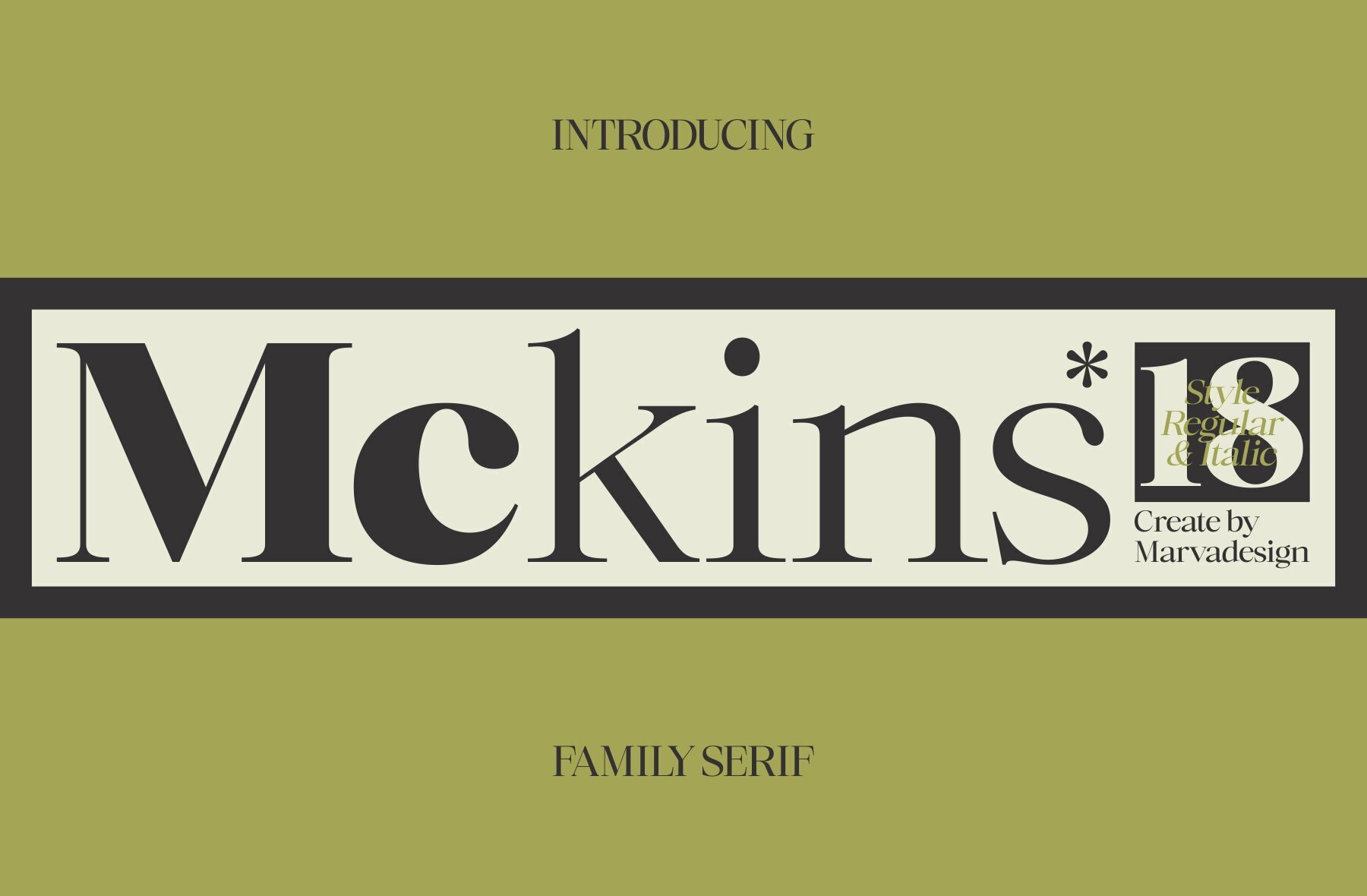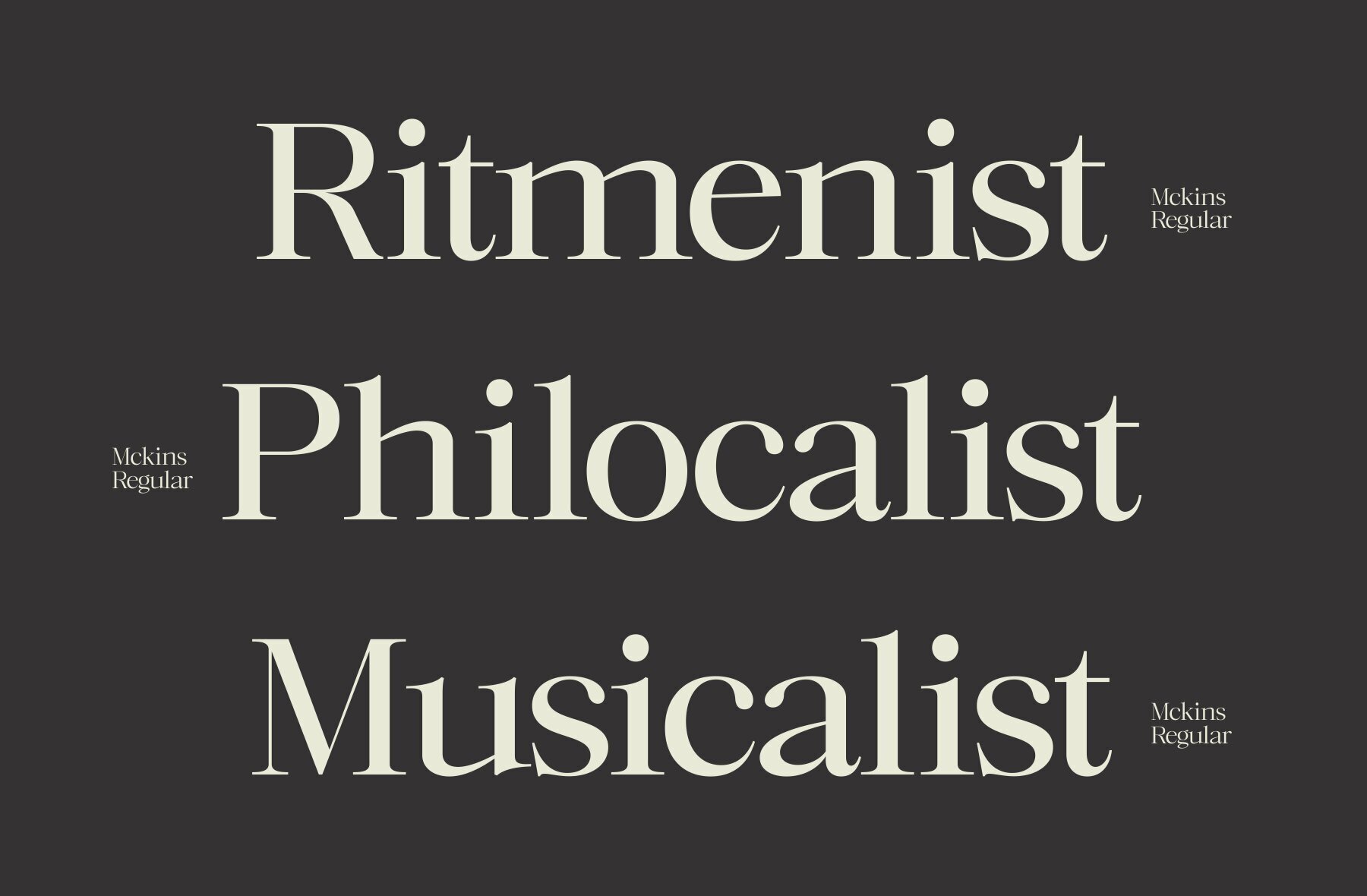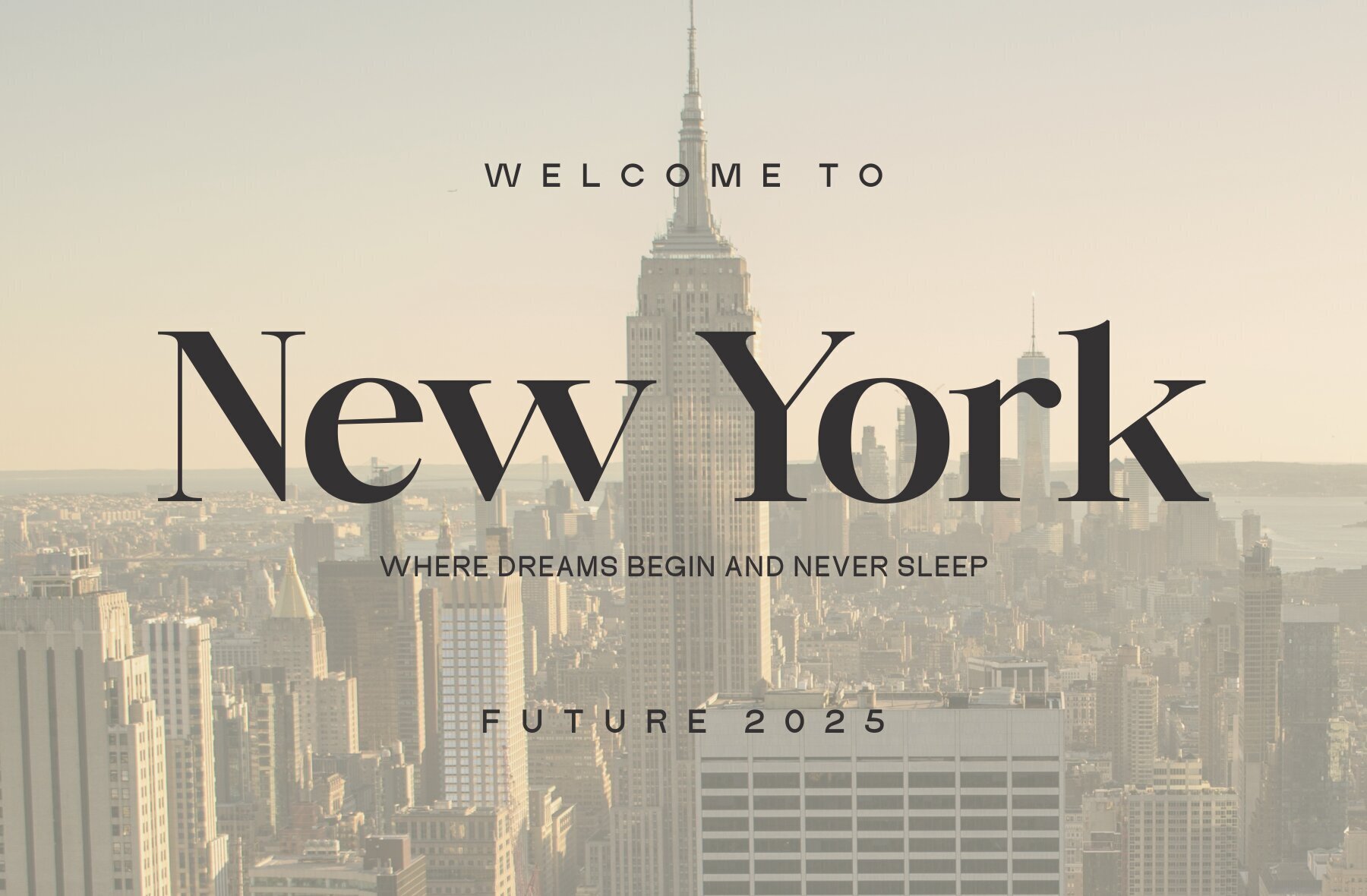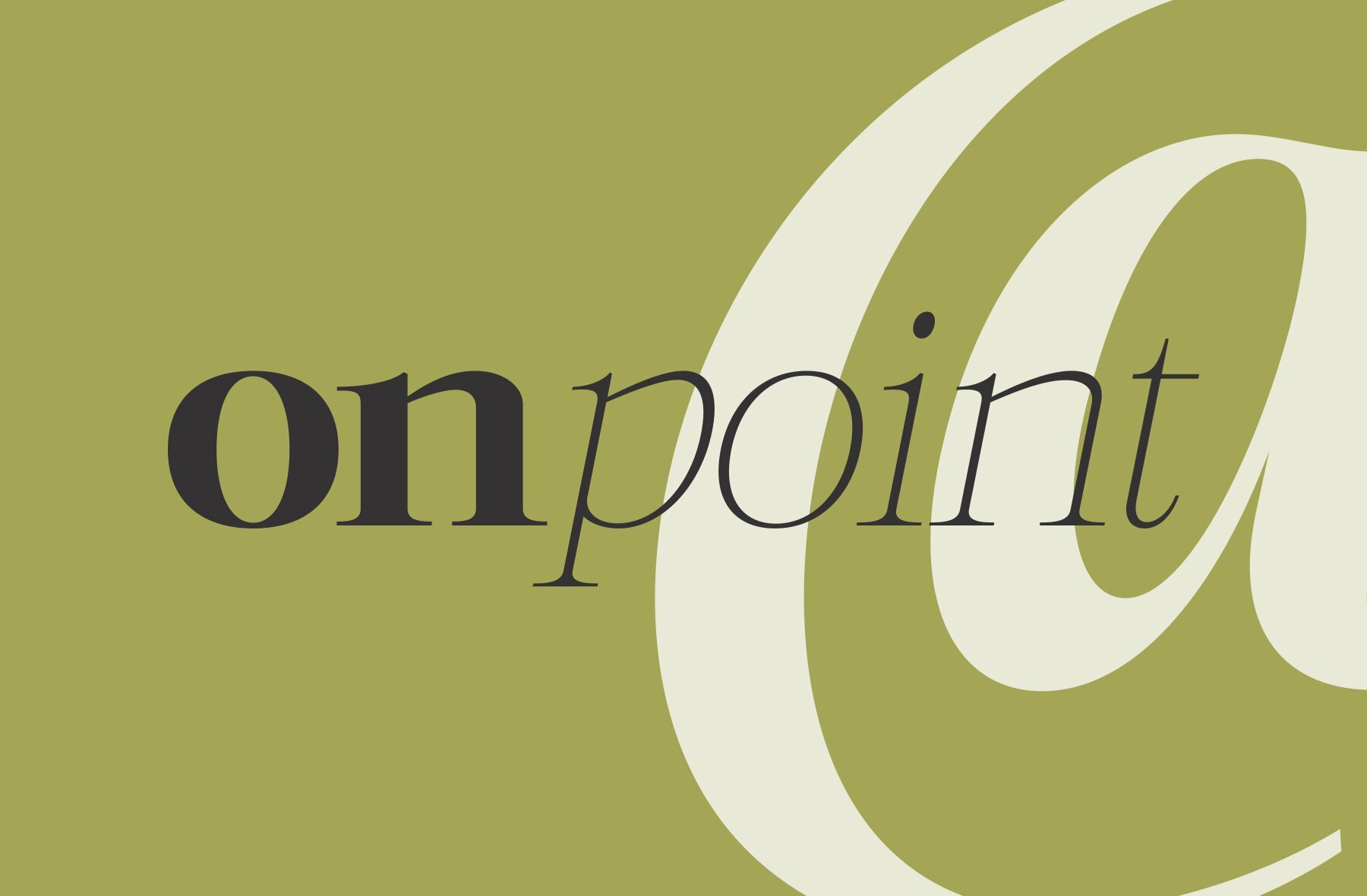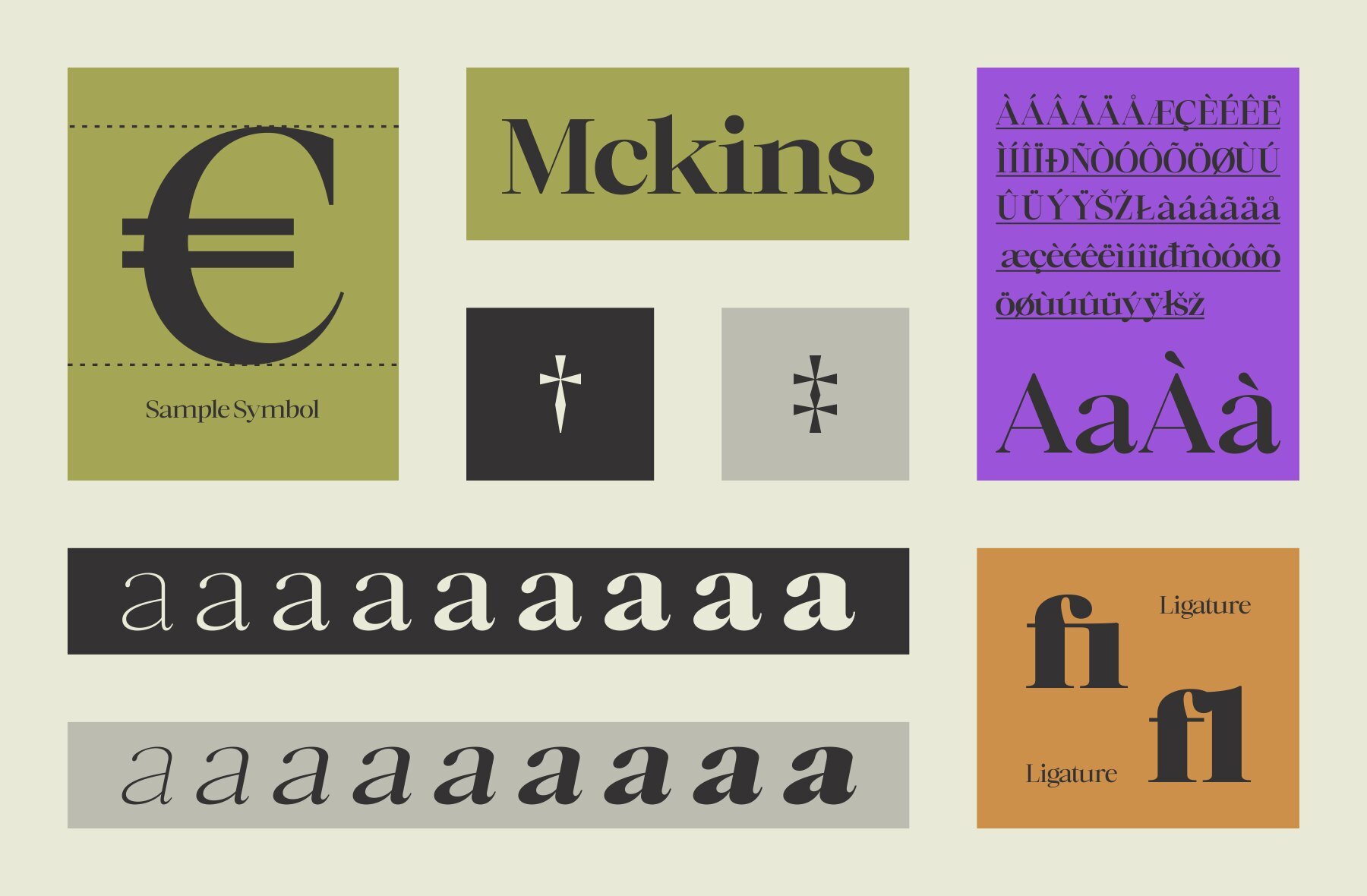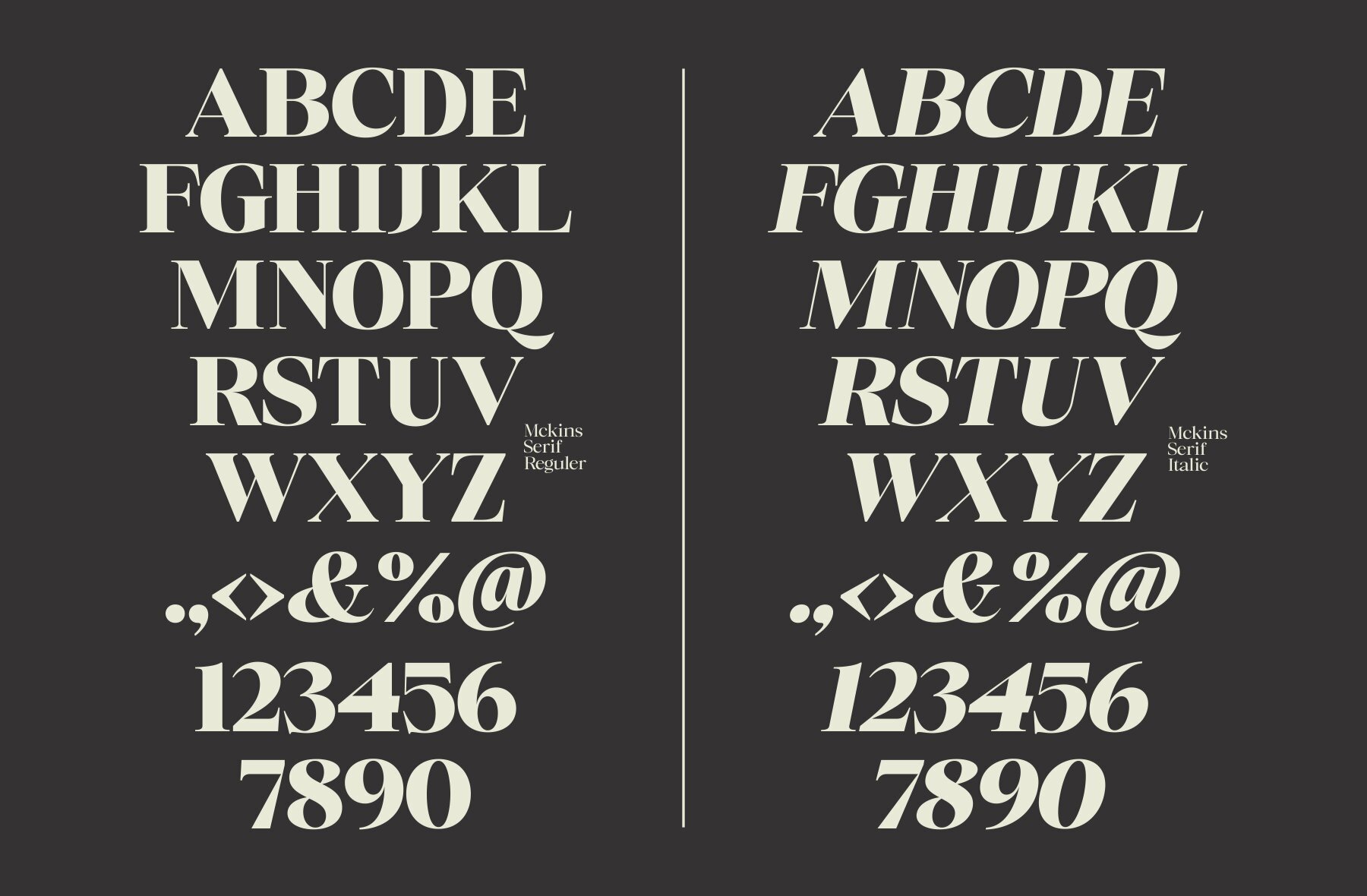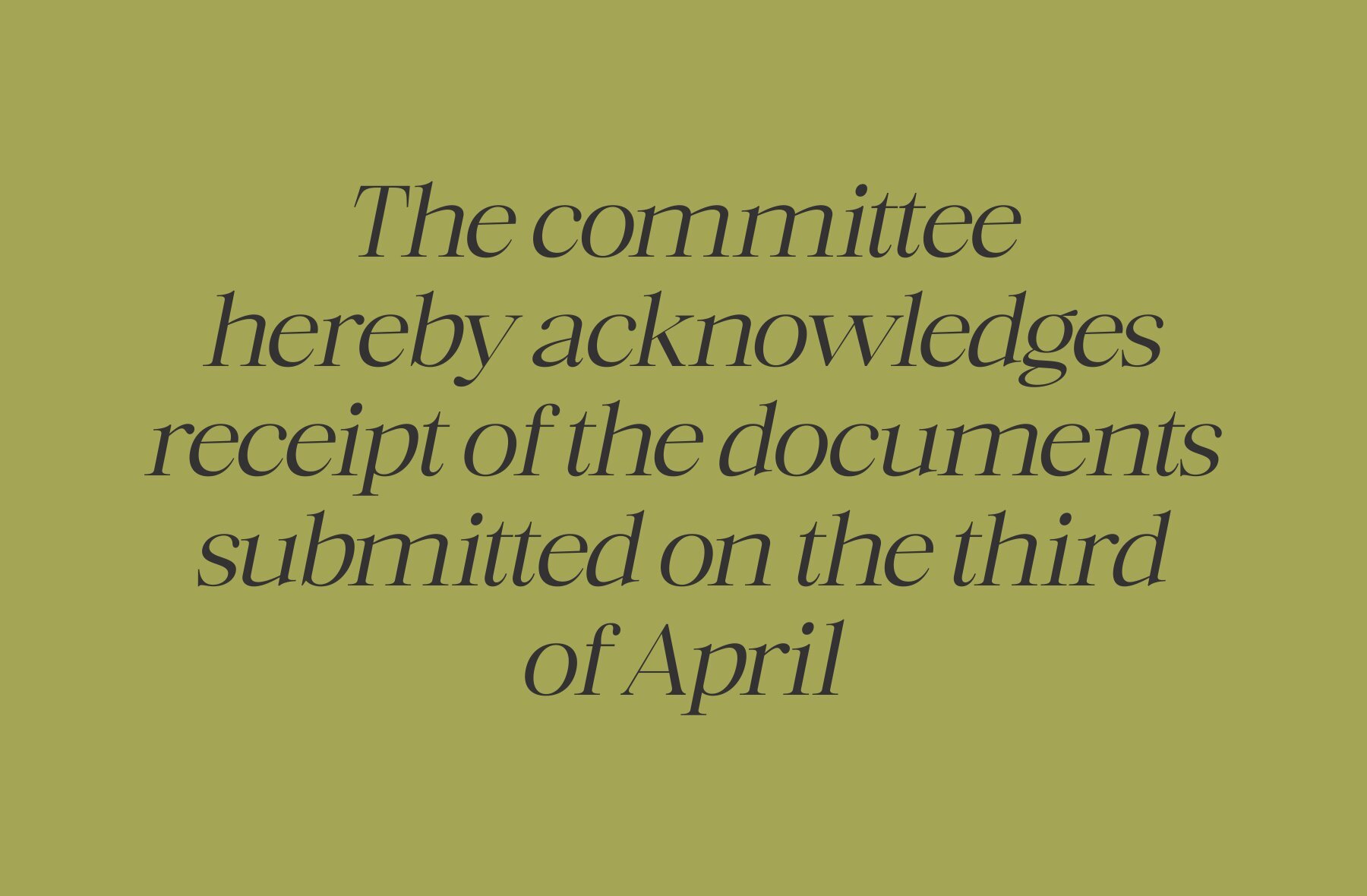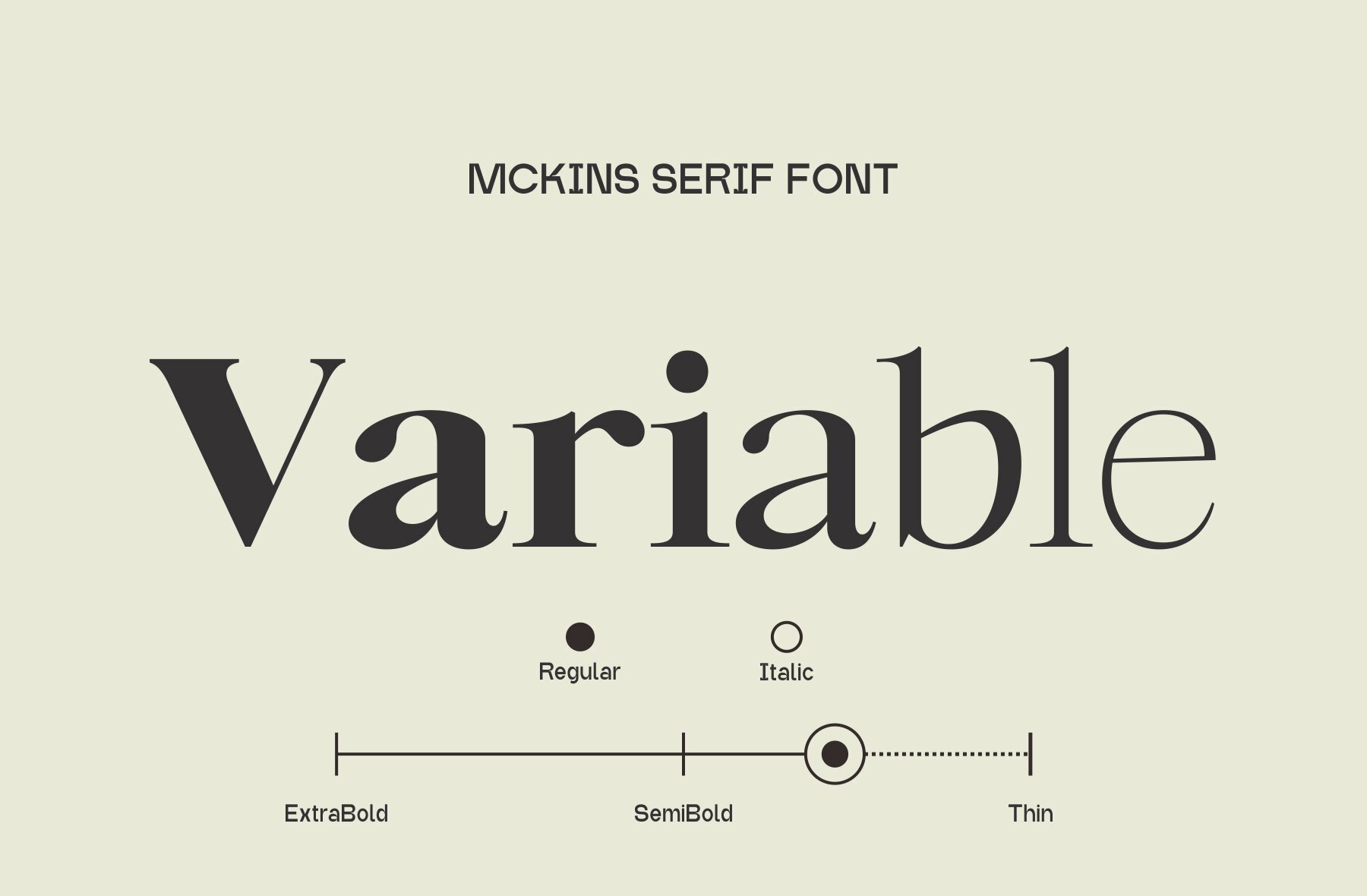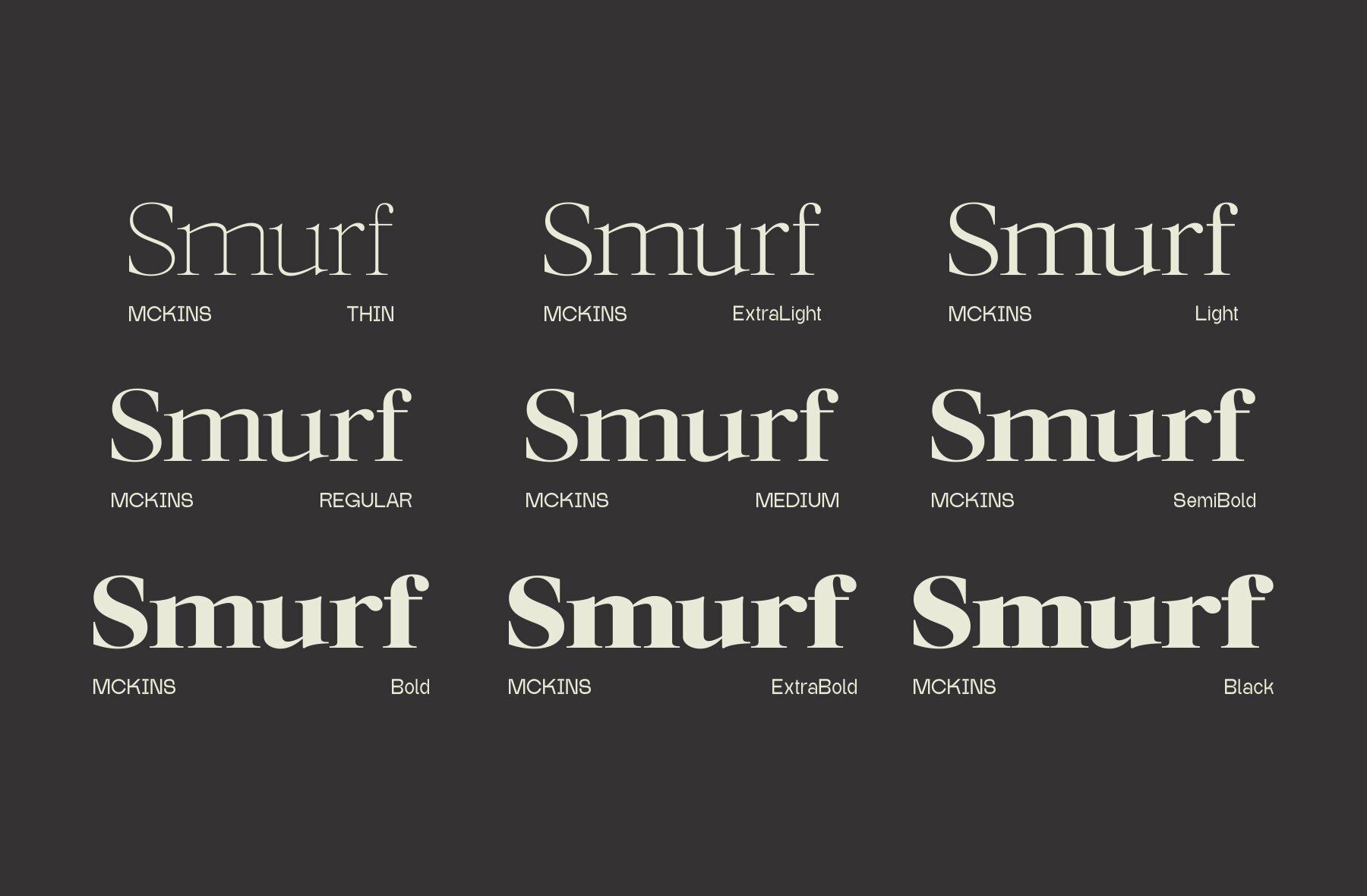
Mckins Font
Mckins is a sophisticated serif typeface that showcases a blend of traditional serif influences with contemporary design features. With high contrast strokes and elegant proportions, it offers both timeless appeal and modern versatility. Designed by Marvadesign, Mckins comes in 18 distinct styles, offering both upright and italic versions that range from Thin to Black. This diverse range makes it adaptable for various artistic applications, such as editorial layouts, branding efforts, and visual identities. The font’s sharp terminals, pronounced vertical stress, and graceful curves contribute to its impact, whether used in display settings or in body text. This ensures readability and maintains a commanding presence in professional designs.Mckins: A Refined Serif Typeface for Modern Design